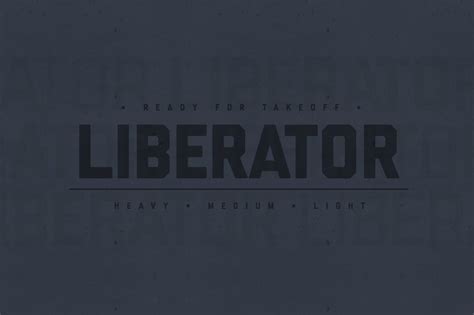
Liberator Font Download
Liberator Font Download - Liberator font is a display sans serif typeface designed by ryan. It has bold and prominent. Web december 16, 2021 by eduard hoffmann. Web this font is free for personal use. Link to purchase full version and commercial license : Web sans serif, display, typeface.